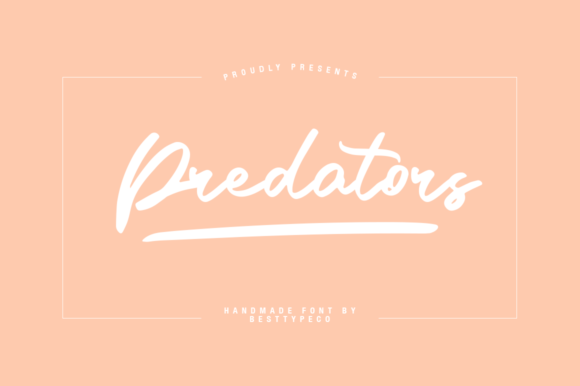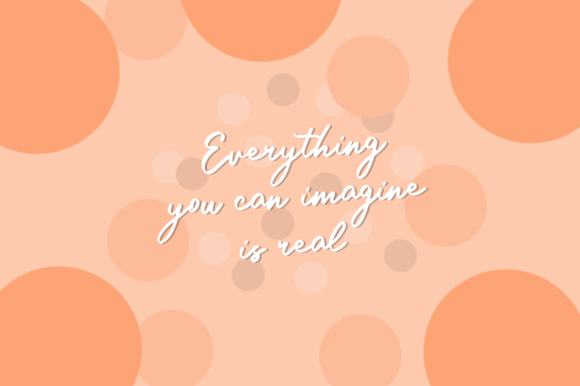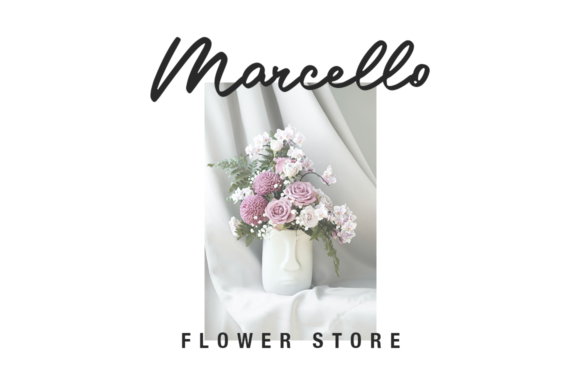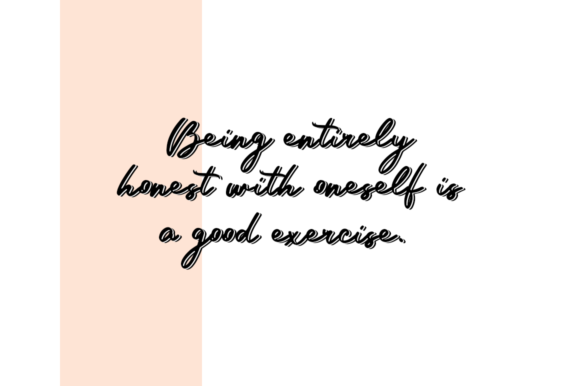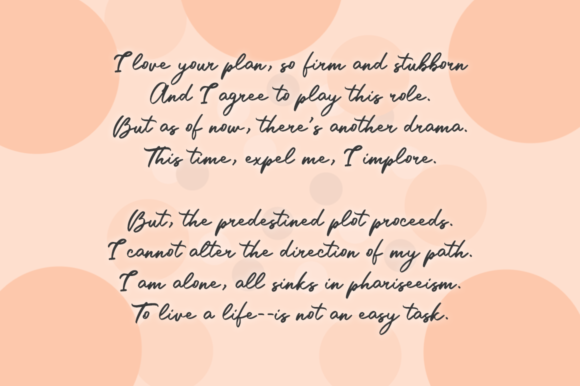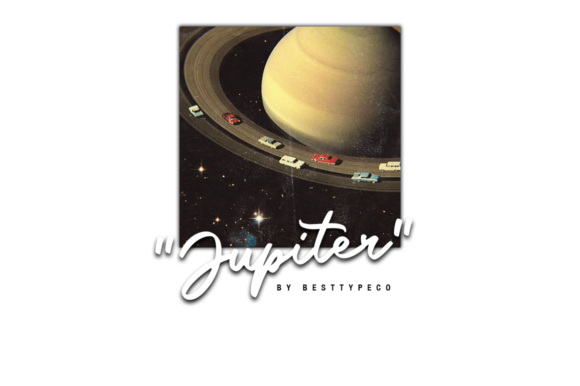
Predators
About Predators Font
Predators is a lovely flowing handwritten font, designed with the help of a brush pen. Fall in love with its incredibly versatile style and use it to create gorgeous wedding invitations, beautiful stationary art, eye-catching social media posts, and much more!